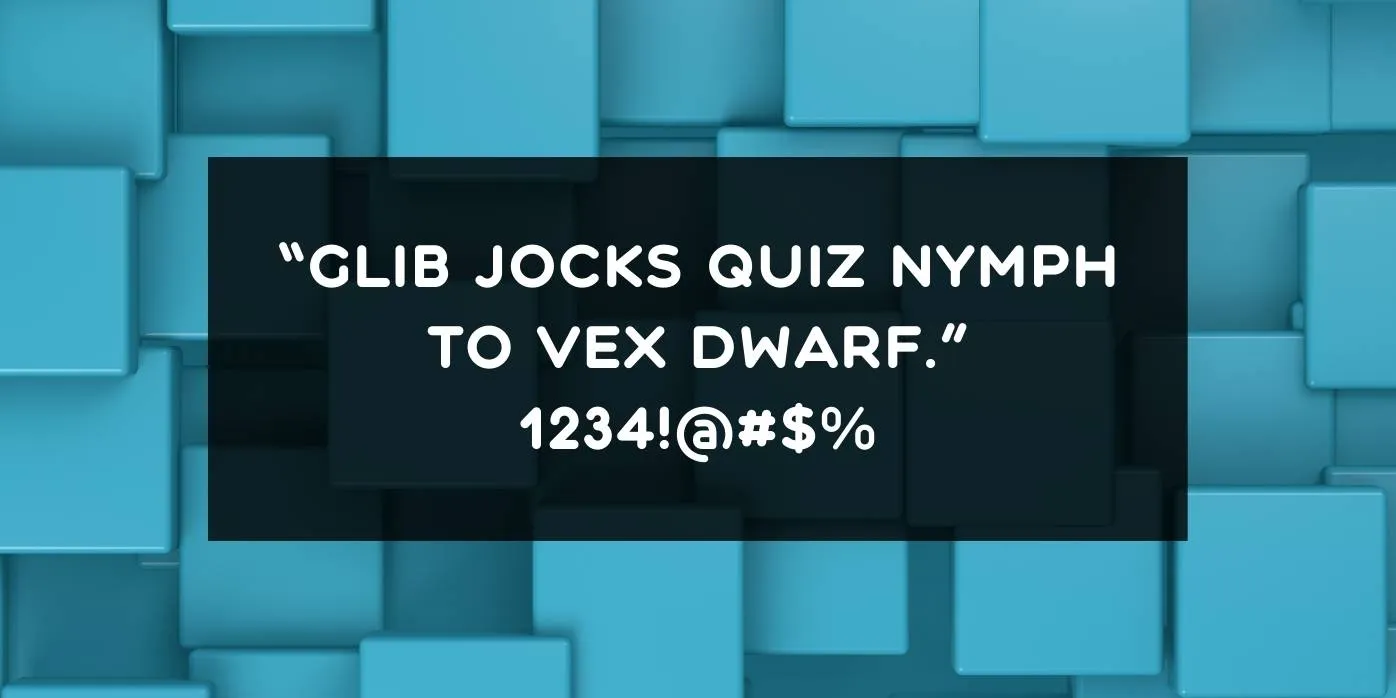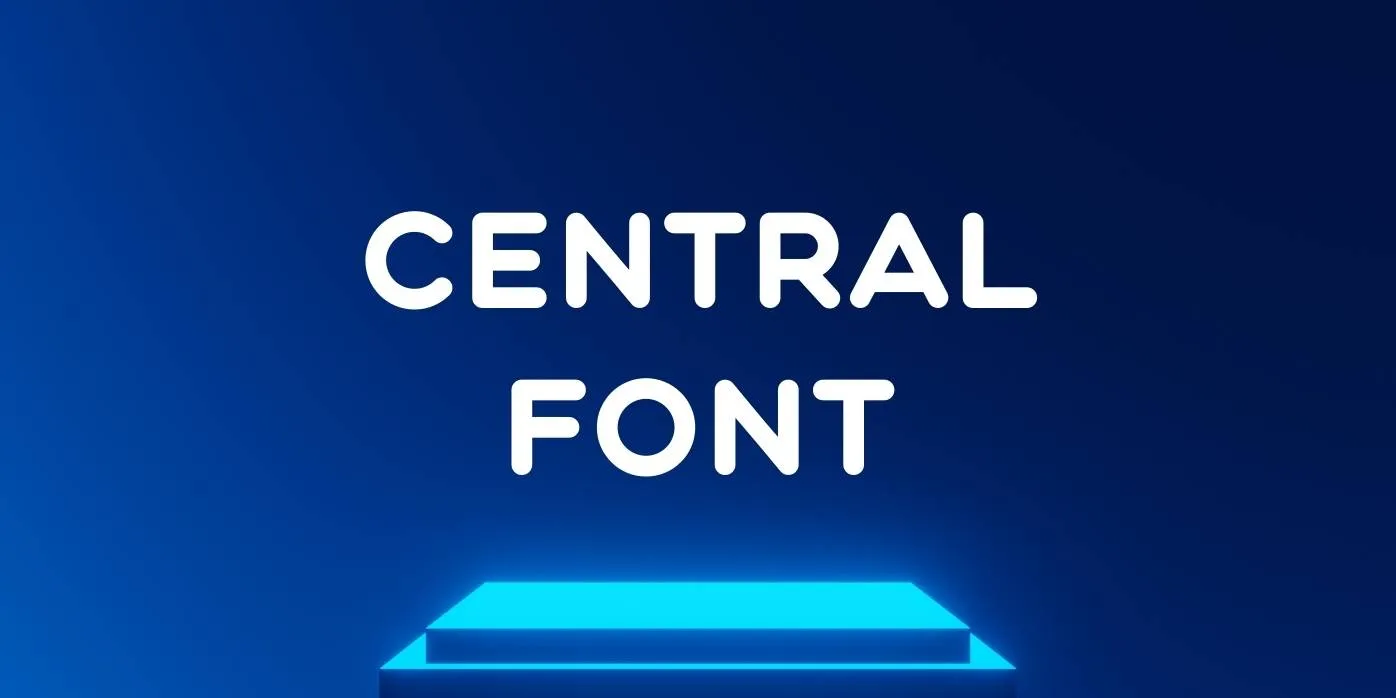
Central Font
In this article, we present Central Font which belongs to the sans serif family. This typeface was designed by Nicholas Garner. Central Font is a humanist sans serif typeface with low contrast and rounded shapes. The family includes eight weights, from ExtraLight to Black, each with matching italics.
Central Font has a wide variety of applications due to its clean and simple design. It can be used for both body text and headlines. This typeface is suitable for CSS and HTML. For more classic features, you will have to use its alternative solomon font which has the same features.
Central Font was designed with legibility in mind. The wide range of weights ensures that this typeface can be used in a variety of different contexts. The low contrast makes it easy to read, even in small sizes. The rounded shapes give the typeface a friendly look, making it ideal for use in branding and marketing materials.